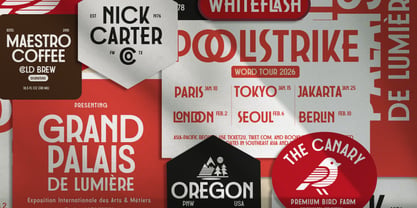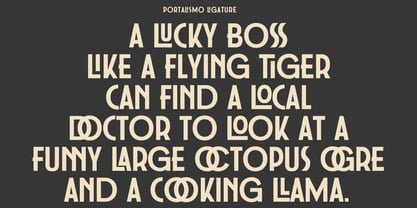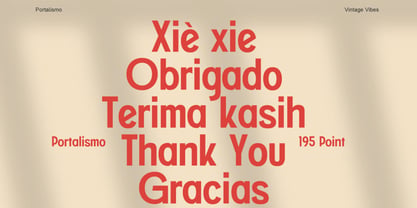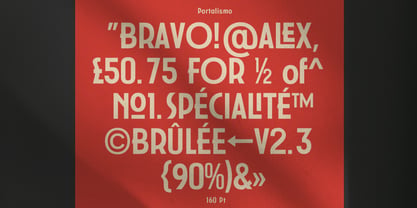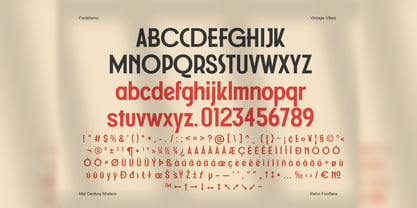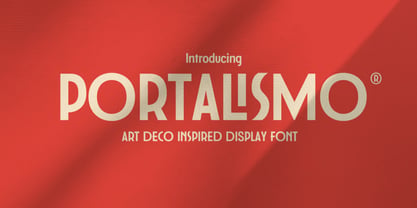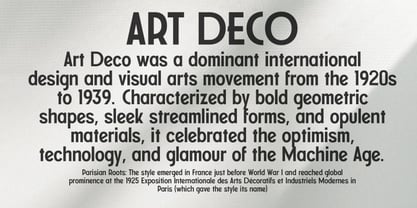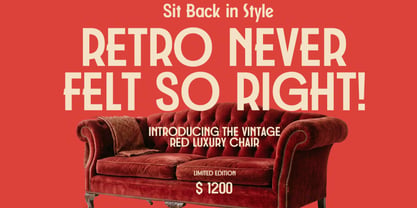
Portalismo
The Portalismo Font Family was designed by Wahyudi Mokoagow and published by Yeen Studio. Portalismo contains 1 styles. More about this family
Portalismo is an Art Deco-style display font with a vintage touch. Its tall, geometric, and decorative letterforms make it suitable for bold, characterful designs.
This font is suitable for retro posters, logos, editorial titles, packaging, album covers, restaurant branding, event design, and social media content. Its multiple ligatures help give it a more unique look without overpowering the design.